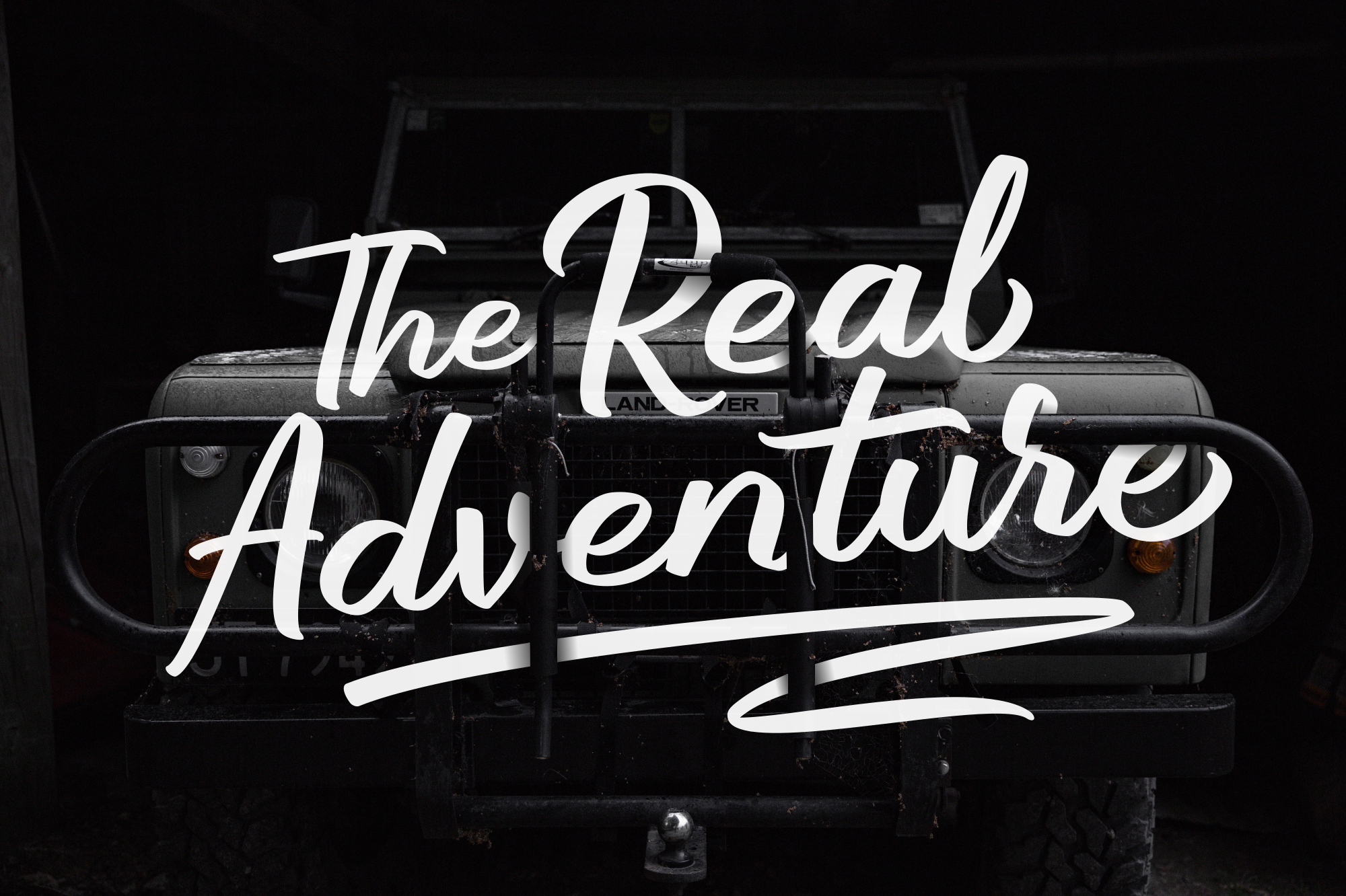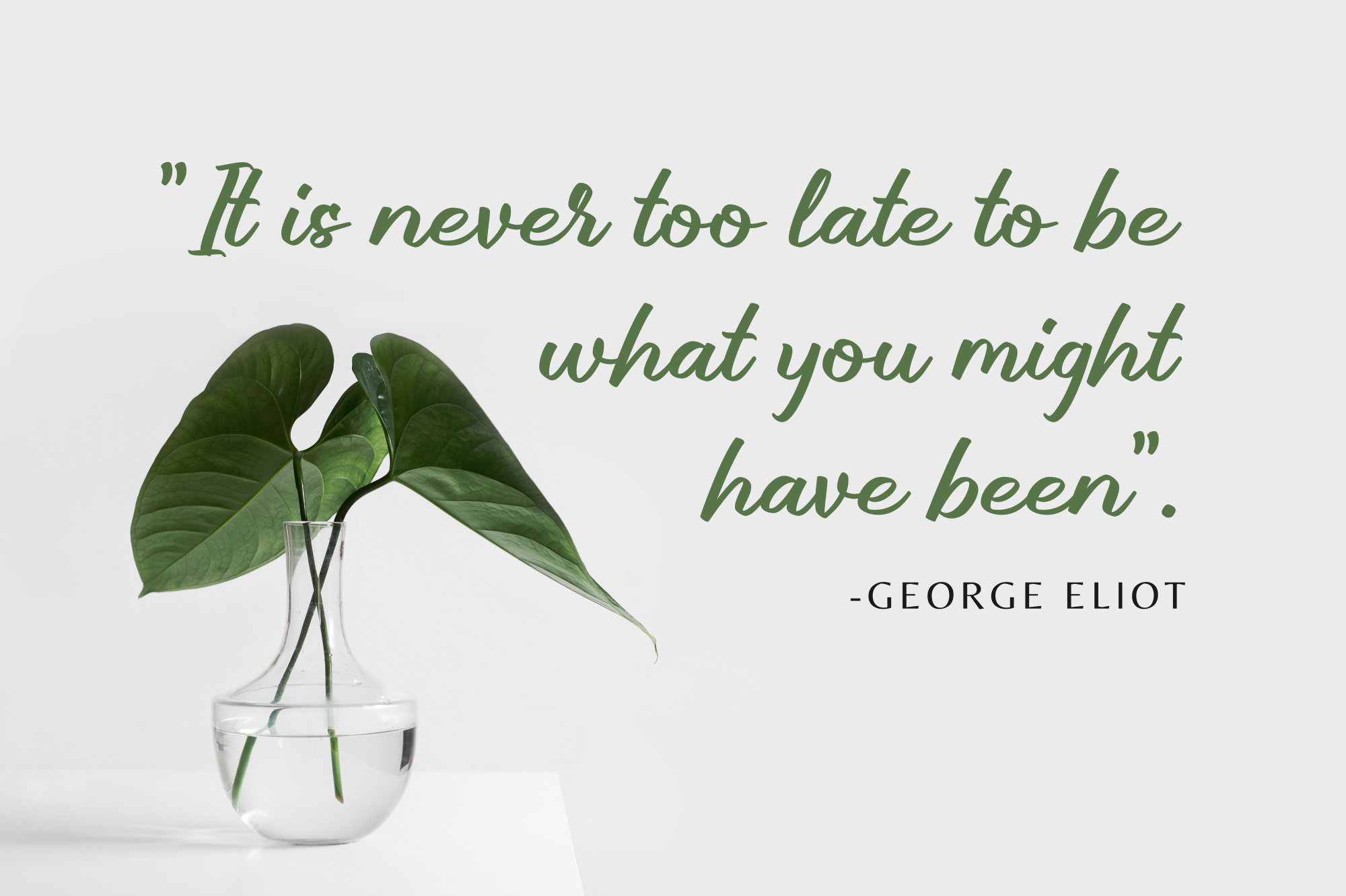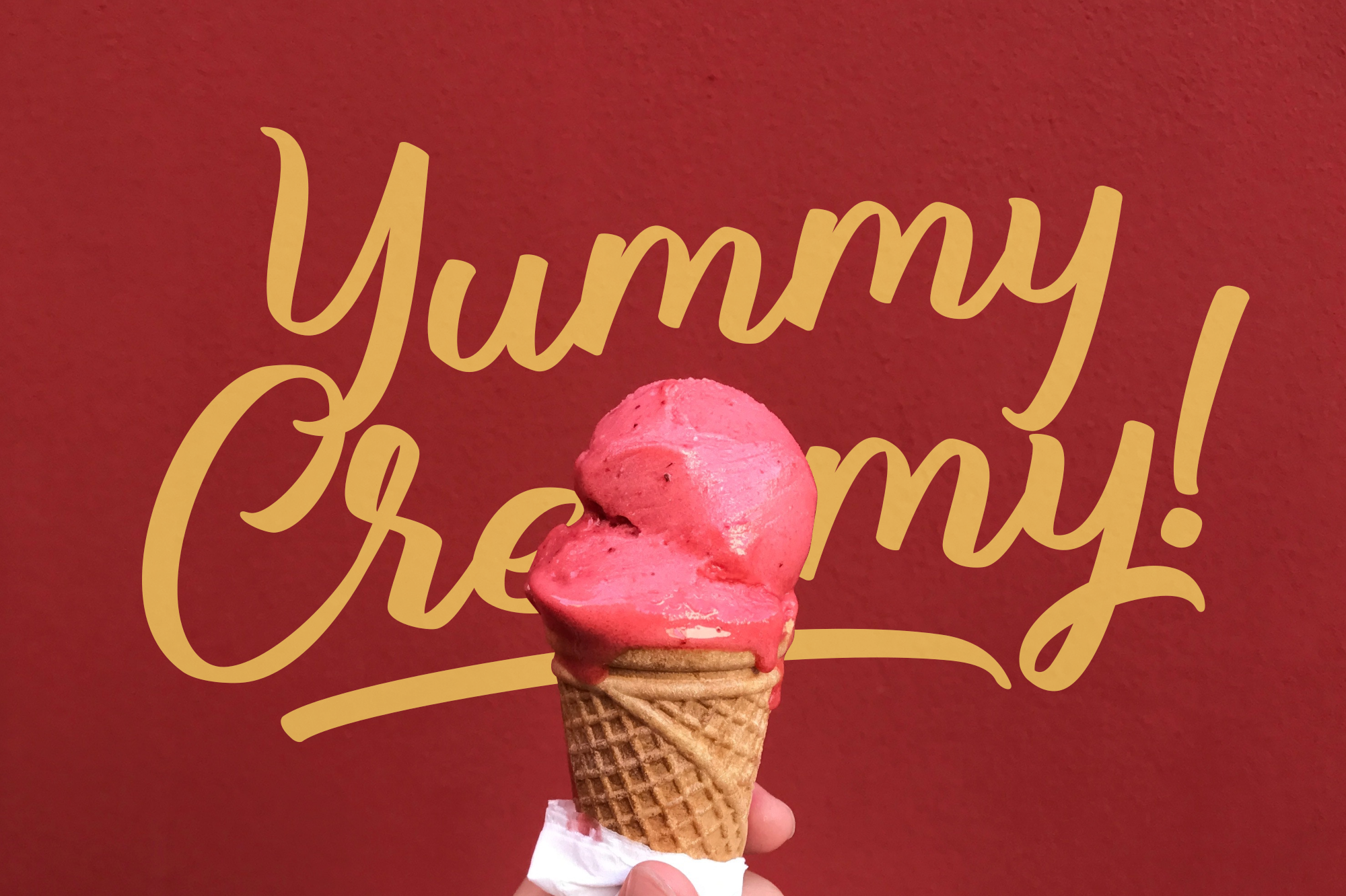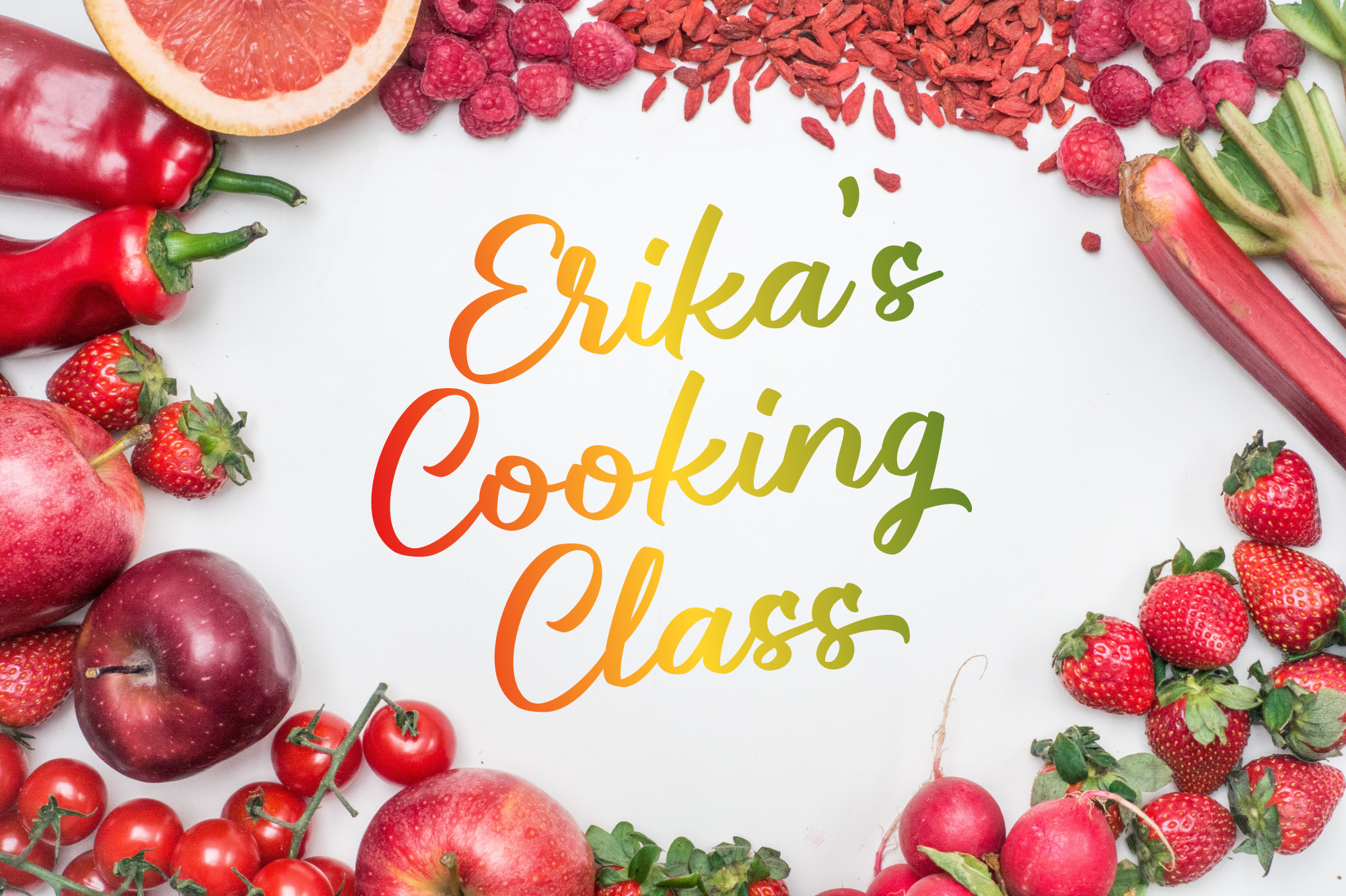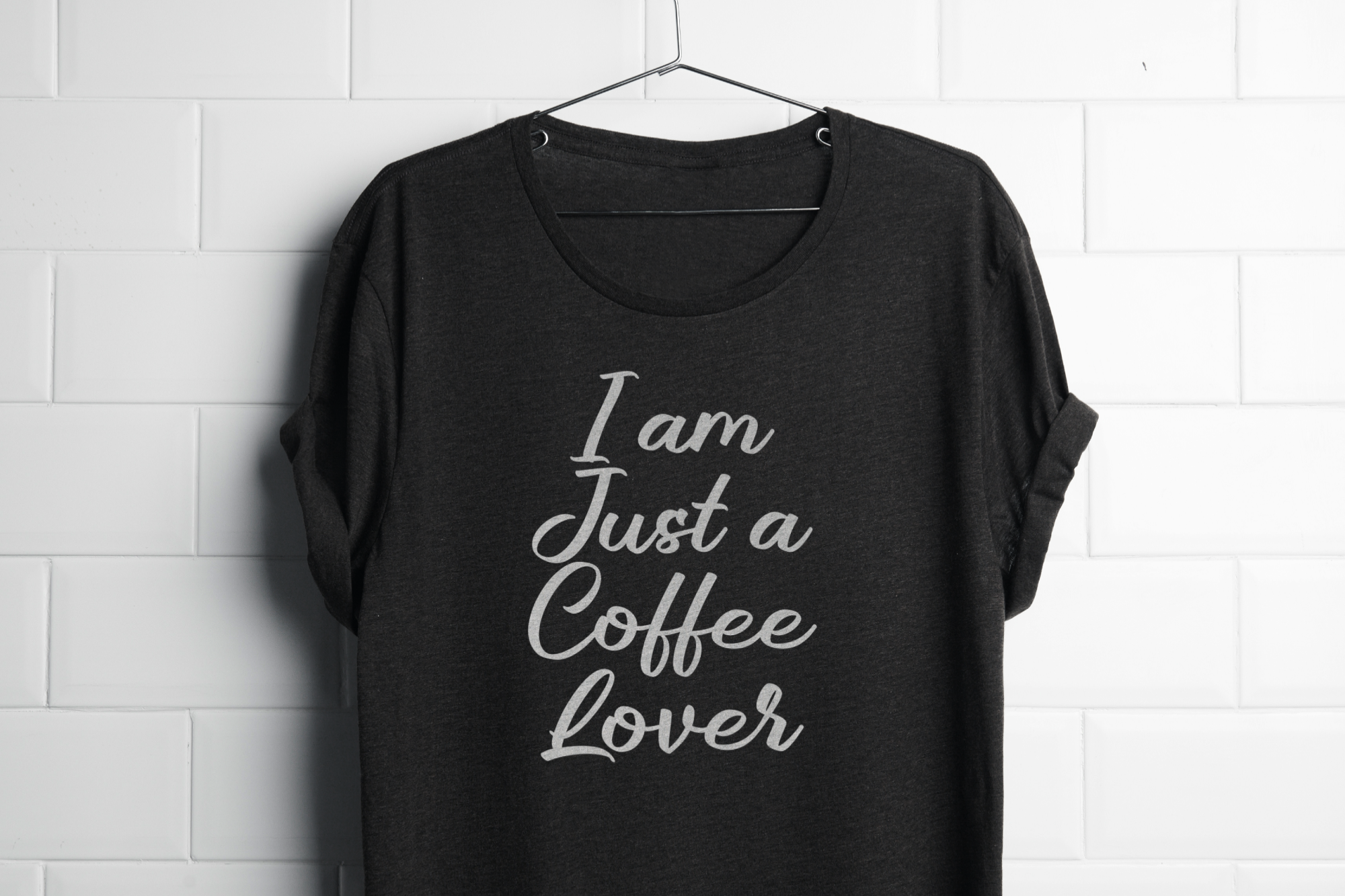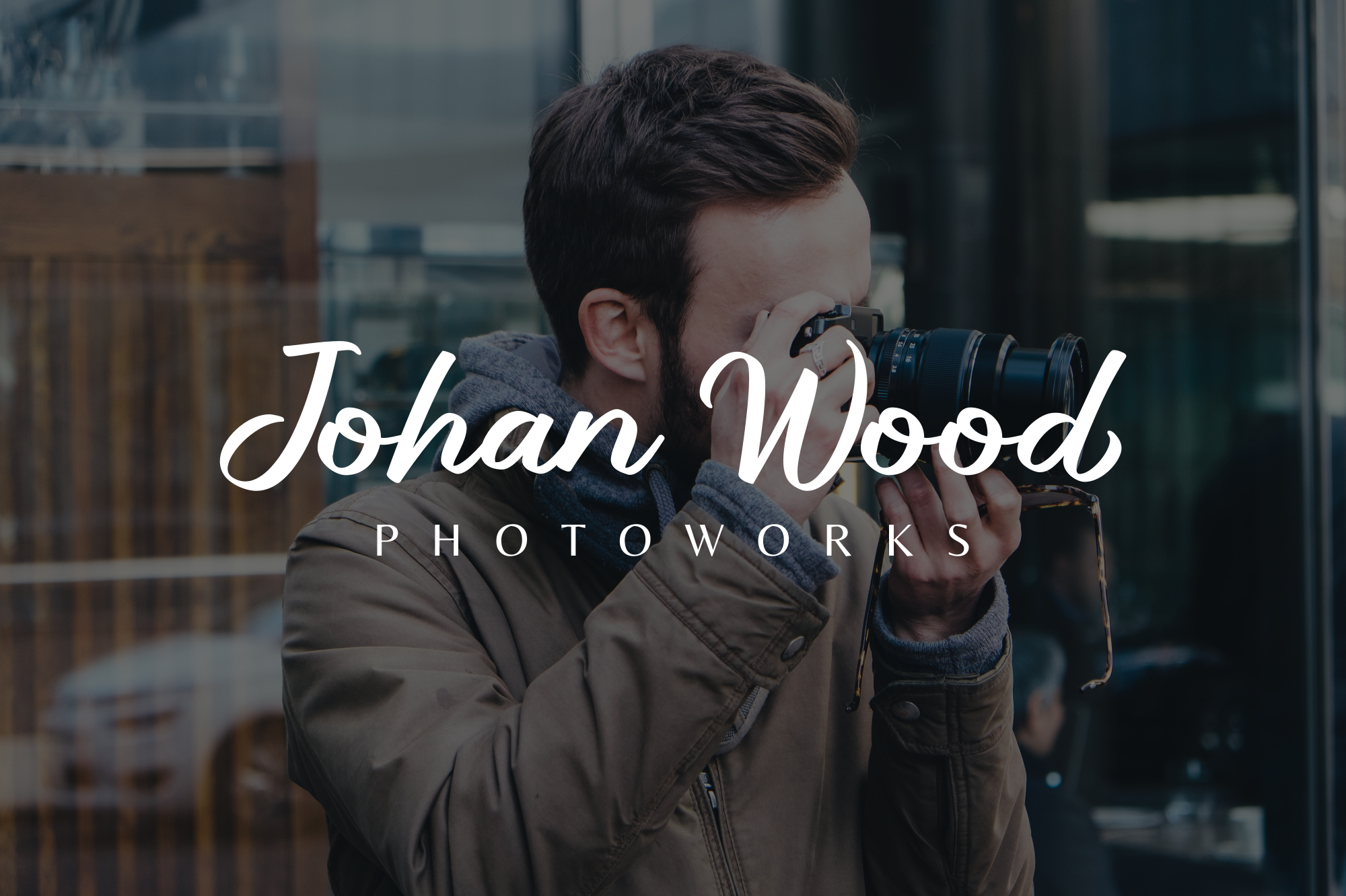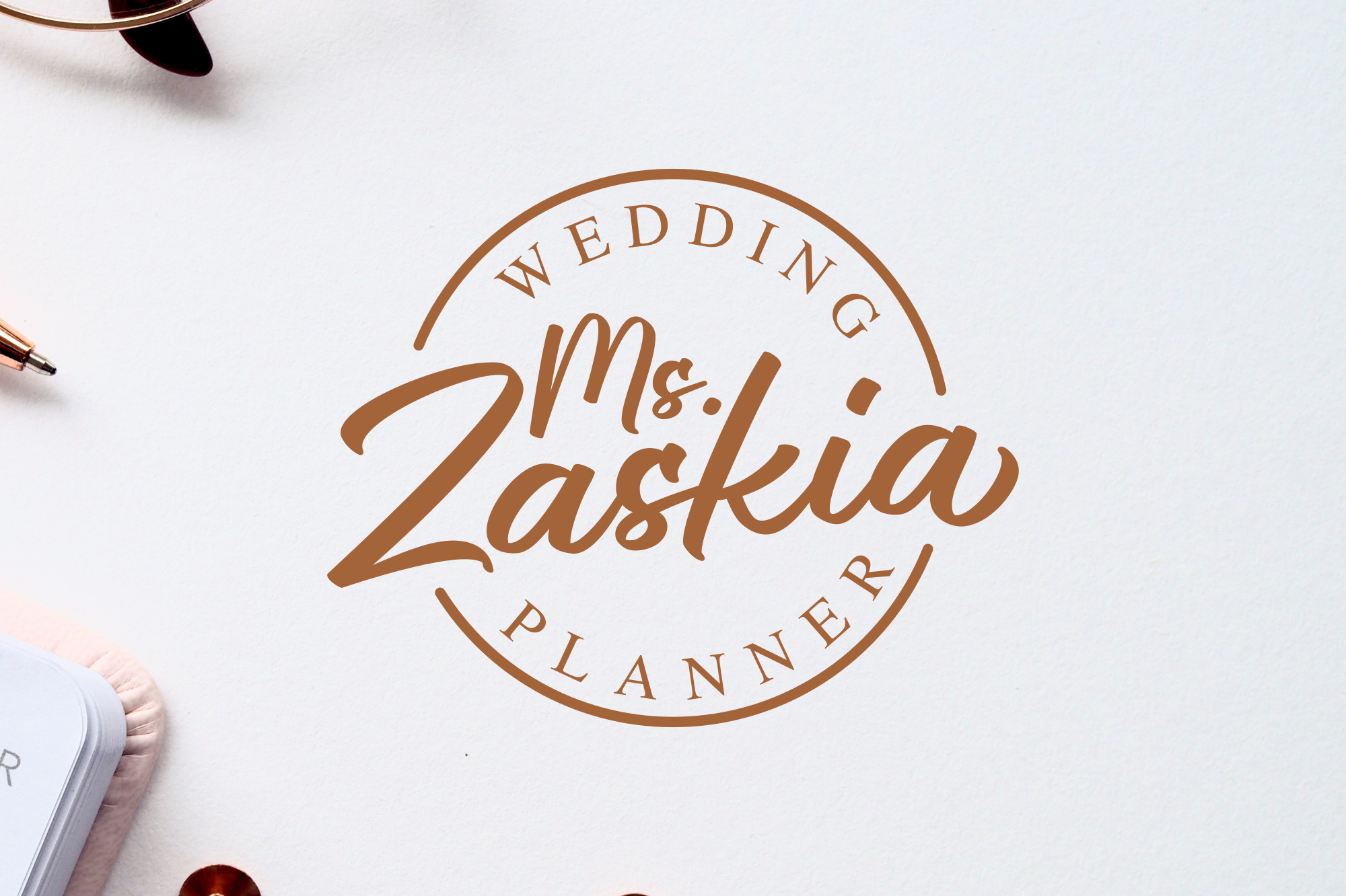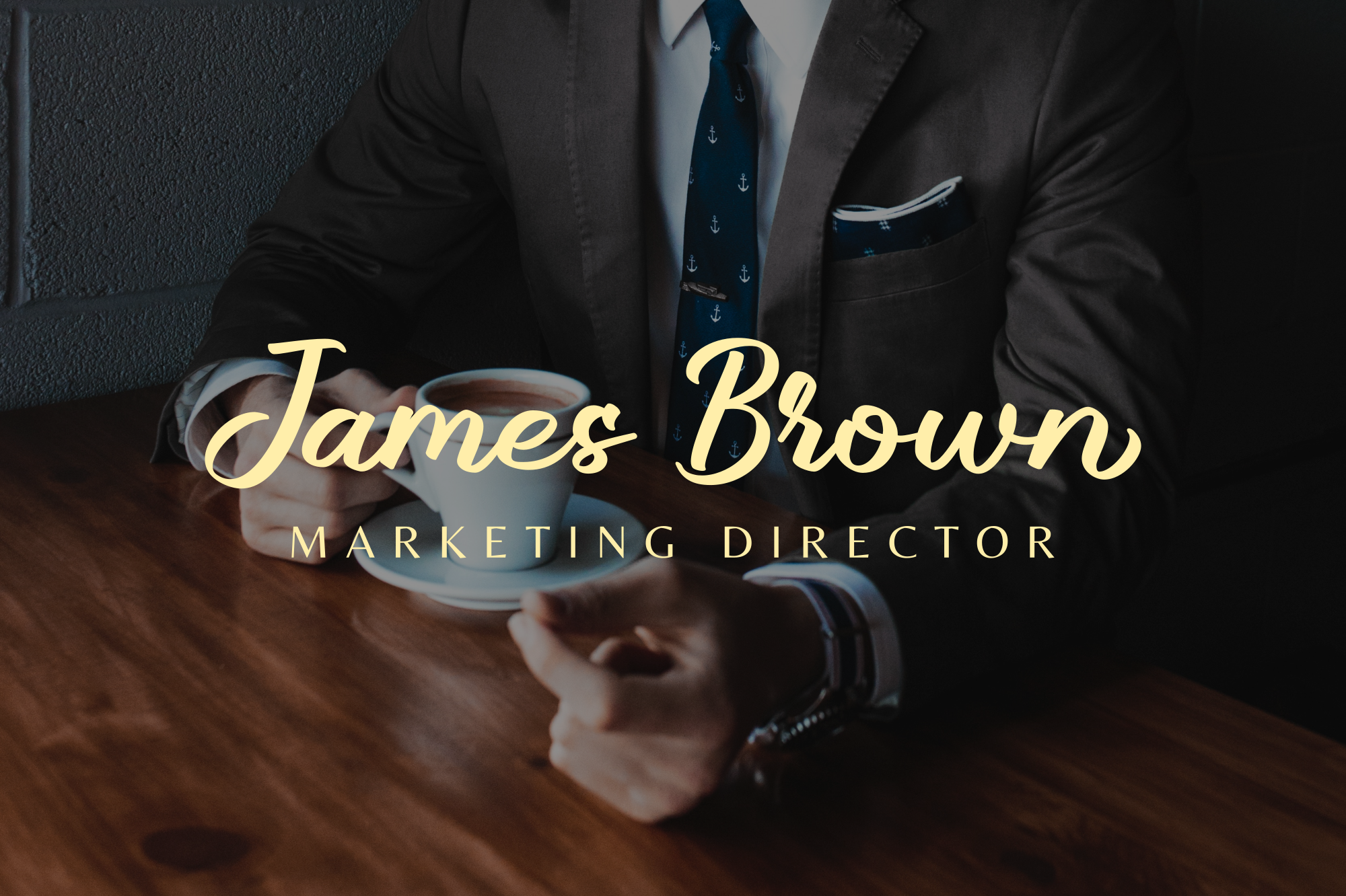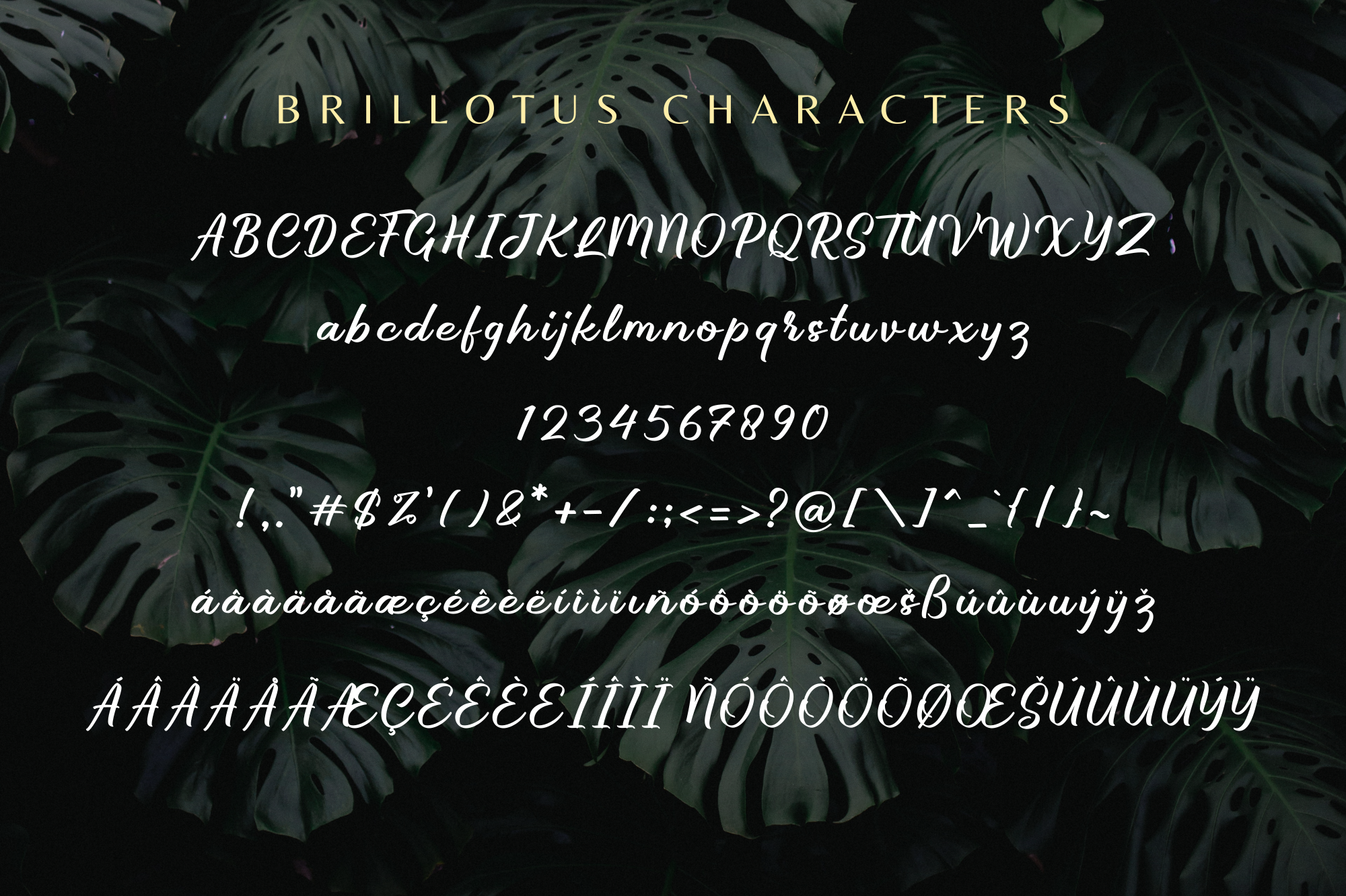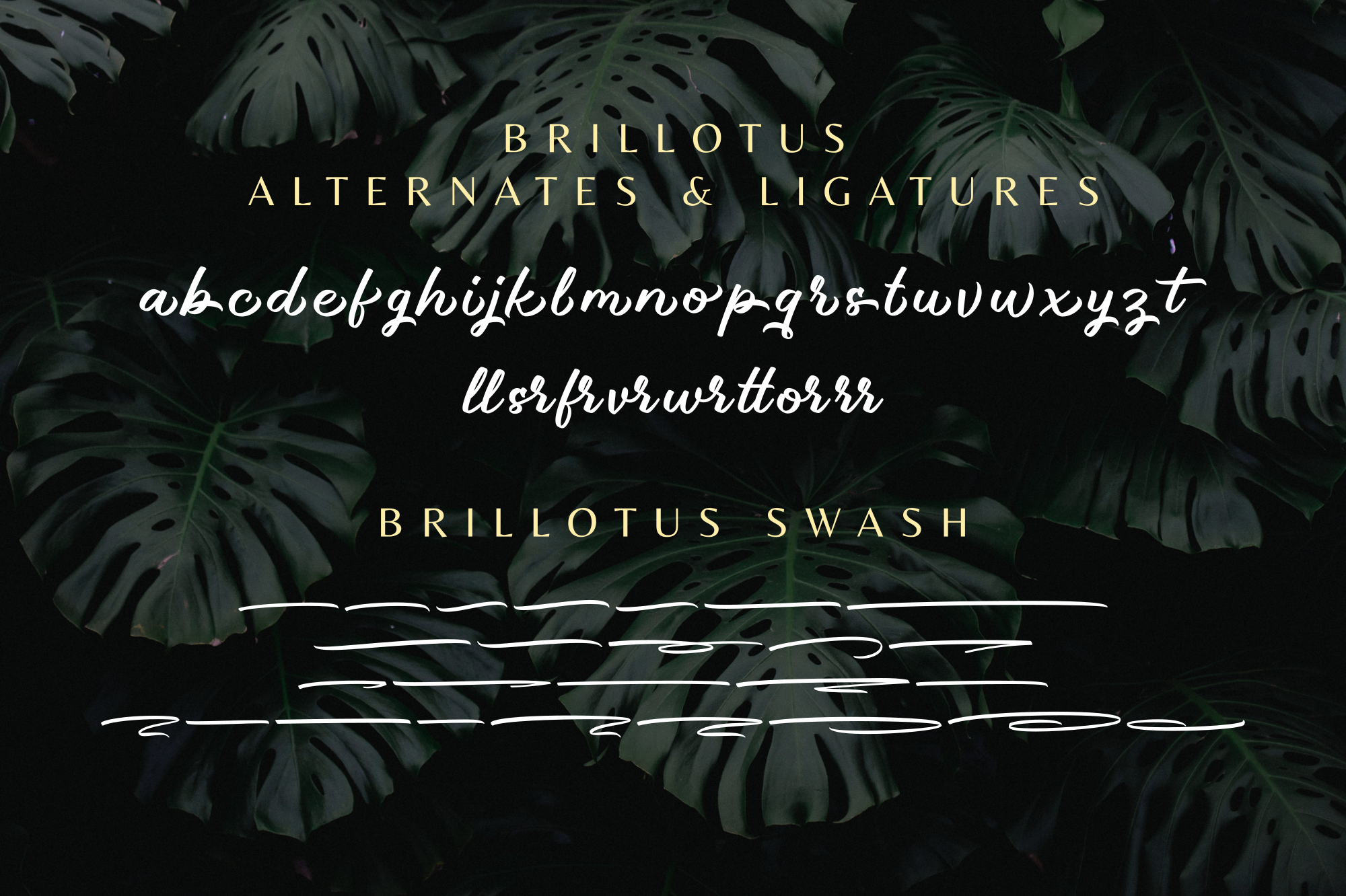
Brillotus - Script Font
Brillotus is a stunning handwritten font with a personal and authentic feel. It adds a natural twist to your design ideas and helps your work look more expressive.
Brillotus is a stunning handwritten font with a personal and authentic feel. It adds a natural twist to your design ideas and helps your work look more expressive. Use it for branding, invitations, logos, quotes, packaging, greeting cards, posters, and more.
Branding, invitations, logos, quotes, packaging, greeting cards, posters,